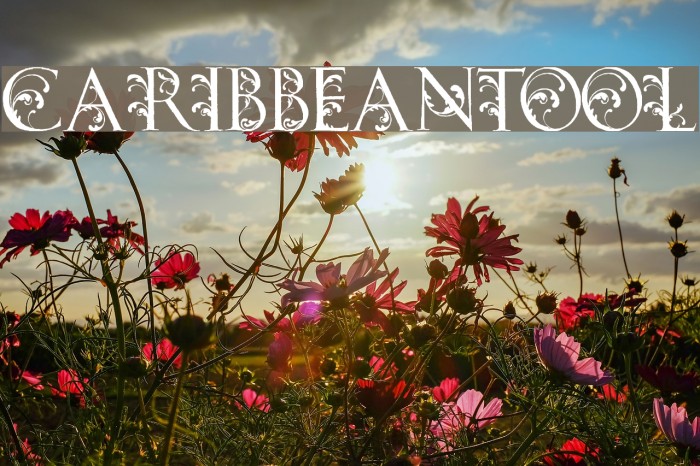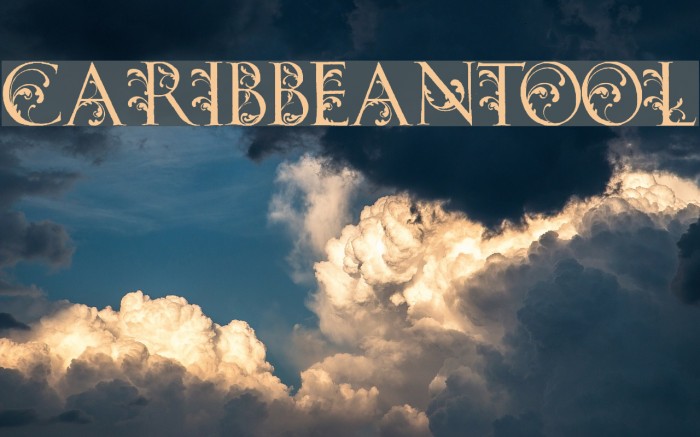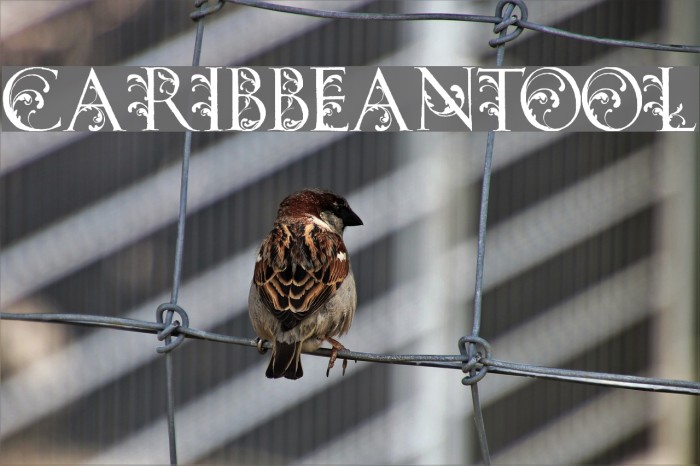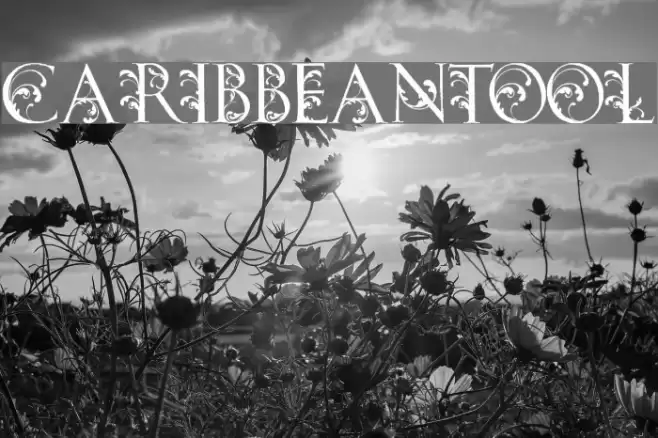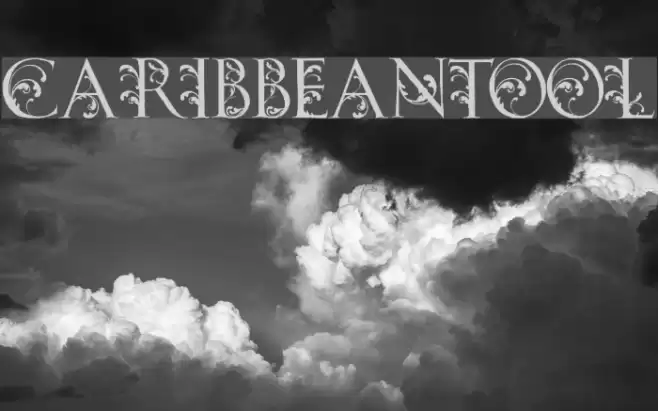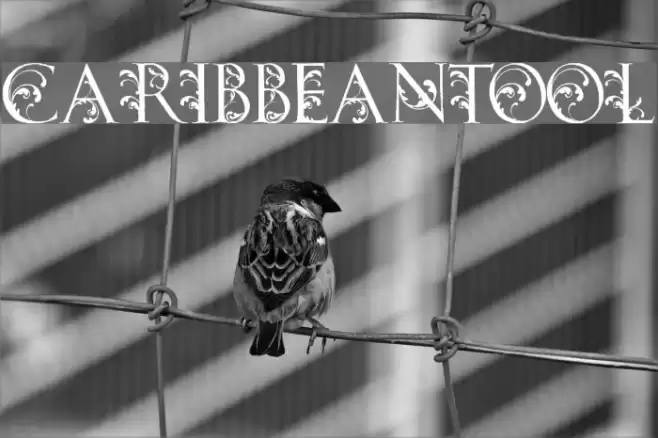
CARIBBEANTOOL Font
This font features an ornate and decorative style, with intricate flourishes and embellishments that give it a unique and artistic appearance. The uppercase letters are particularly elaborate, with swirling patterns that add a sense of elegance and sophistication. The lowercase letters maintain a more traditional serif structure, providing a nice contrast to the decorative uppercase. The overall design is reminiscent of vintage or classical typography, making it suitable for projects that require a touch of elegance and historical charm. The font's distinctive style is ideal for creating eye-catching headlines, invitations, or branding materials that need to stand out.
An ornate and decorative font with intricate flourishes, perfect for elegant and vintage-themed projects.
- Font: CARIBBEANTOOL
- Proposed Projects: Ideal for wedding invitations, luxury branding, vintage posters, and decorative headlines.
- Overall Style: Vintage
- Use Case: Headlines, Logos, Invitations